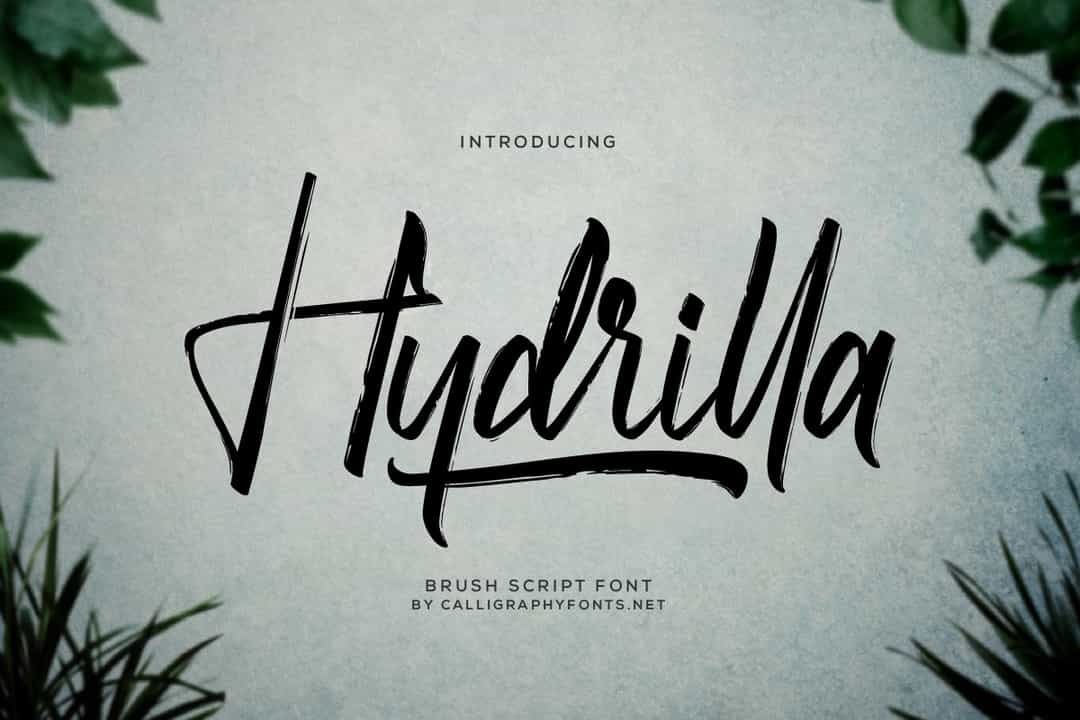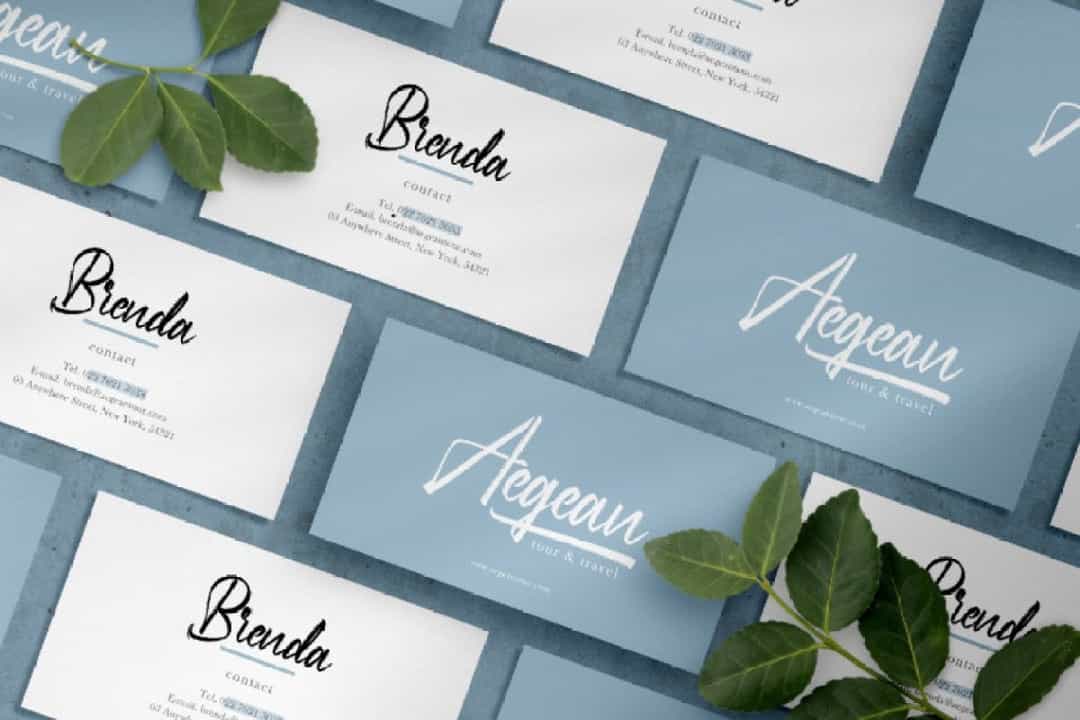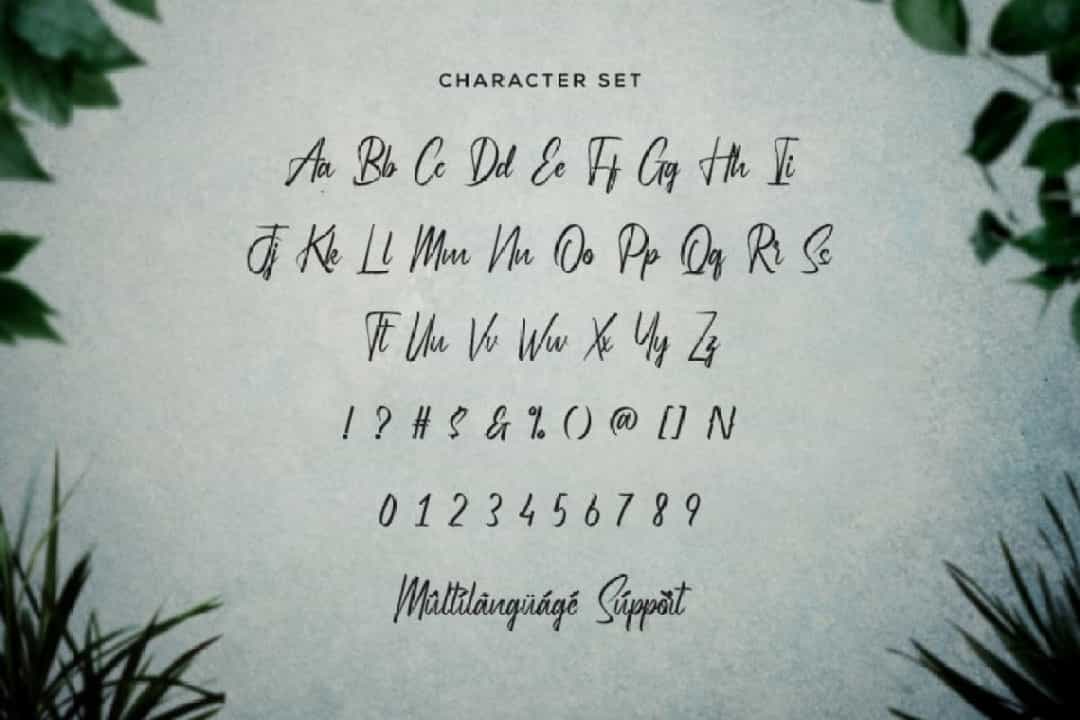
Hydrilla is a modern brush font which has a clear texture and provides a prospect of a stylish and elegant script font. This font has got a touch of the old and the new, it’s an innovative handwritten brush script font with class and style.